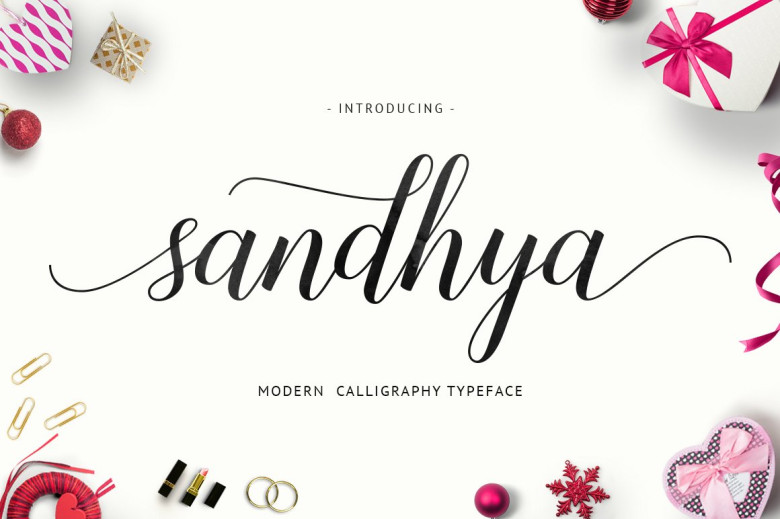
Sandhya Script
Sandhya Script is a new fresh & modern script with a modern calligraphy-style, decorative characters and a dancing baseline! So beautiful on invitation like greeting cards, branding materials, business cards, quotes, posters, and more!